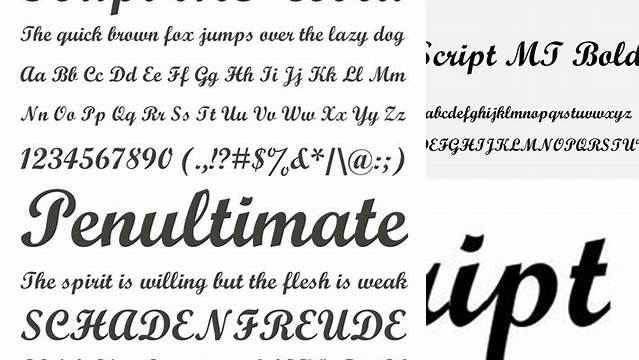
Hey guys! Looking to add a touch of elegance and sophistication to your designs? Script MT Bold is a classic font that can do just that. It's perfect for everything from invitations to branding materials, and the best part? You can often find it for free download! But before you rush off to download it, let's dive deep into the world of Script MT Bold and explore everything you need to know. This comprehensive guide will cover where to find it, how to use it, and even some awesome alternatives. Let's get started!
What is Script MT Bold?
Script MT Bold is a widely recognized and used typeface, known for its elegant and flowing script style. It's a popular choice for projects that require a touch of class and sophistication. You know, the kind of font that makes everything look just a little bit more fancy. It’s a classic for a reason, often used in formal invitations, logos, and branding materials. The bold variant adds extra emphasis, making the text stand out even more. This font's readability is also pretty good, even though it has a handwritten feel. It’s a great option if you want something that looks personal but is still easy to read. So, if you're looking to add a dash of elegance and a bold statement to your project, Script MT Bold might just be the perfect font for you. Now, let's explore where you can get your hands on this versatile typeface for free and how to make the most of it in your designs.
Script MT Bold Font History
Understanding the history of a font like Script MT Bold gives you a deeper appreciation for its design and usage. Fonts aren’t just letters; they’re little pieces of history themselves! The Script MT family has been around for quite a while, initially designed to mimic the look of handwritten script. This makes it a timeless choice, bridging the gap between traditional calligraphy and modern digital typography. The exact origins are a bit murky, but it's widely believed to have roots in earlier script typefaces that were popular in the pre-digital era. Think of it as a digital evolution of classic penmanship! Over the years, Script MT Bold has found its way into countless designs, from wedding invitations to prestigious branding projects. Its enduring popularity speaks to its versatility and aesthetic appeal. By knowing its background, you can use this font more effectively, leveraging its historical charm to enhance your own projects. It's not just about choosing a font; it's about choosing a legacy. Knowing the history behind Script MT Bold helps you use it in a way that respects its origins while still making it fresh and relevant for today’s designs. Let's move on and discuss the key characteristics that make this font so special.
Key Characteristics of Script MT Bold
So, what exactly makes Script MT Bold stand out from the crowd? Well, it's a combination of several key characteristics that contribute to its distinctive look and feel. First off, its flowing, cursive lines give it an immediate sense of elegance and sophistication. It's designed to mimic the natural strokes of handwriting, which makes it feel personal and refined. The bold weight adds a strong presence, ensuring that the text commands attention without being overly aggressive. The letterforms are generally quite legible, even with the script style, which is a crucial factor for readability. You want people to be able to read what you’ve written, right? Another notable feature is the consistent slant and rhythm of the letters, creating a harmonious and visually appealing texture on the page. This consistency makes it a reliable choice for various design applications. Whether you’re crafting a logo, designing an invitation, or adding a touch of class to your website, Script MT Bold’s characteristics make it a versatile and impactful option. Understanding these features helps you utilize the font to its full potential, ensuring your message is conveyed with both style and clarity. Now, let's explore some of the best ways to use this fantastic font in your projects.
Best Uses for Script MT Bold
Okay, now that we know what Script MT Bold is and its key characteristics, let's talk about where it really shines. This font isn't just a pretty face; it's a workhorse when used correctly. One of the most popular applications is in formal invitations. Think wedding invites, gala announcements, or any event where you want to convey a sense of elegance and tradition. The flowing script adds a touch of romance and sophistication that’s hard to beat. It's also a fantastic choice for branding, especially for businesses that want to project a classic or high-end image. Imagine a luxury brand using Script MT Bold in their logo – instantly, it communicates quality and refinement. Another great use case is in headings and titles, where the bold weight can make a strong statement. However, it’s best to use it sparingly in body text, as large blocks of script can become difficult to read. Think of it as the perfect accent, not the entire melody. Additionally, Script MT Bold works well in signage and displays where you want to catch the eye with a touch of class. So, whether it's for a special event, a brand identity, or a striking headline, Script MT Bold can bring a touch of elegance and impact to your design. Next up, let's tackle the big question: where can you actually download this font for free?
Alternatives to Script MT Bold
Okay, so maybe Script MT Bold isn't quite the right fit for your project, or perhaps you're just looking to expand your font library. No worries! There are tons of awesome alternatives out there that can give you a similar elegant script vibe. One popular choice is Brush Script MT, which shares a similar handwritten feel but with a slightly more casual and playful look. It’s great if you want something that’s elegant but not too formal. Another fantastic option is Edwardian Script ITC. This font is super classy and ornate, perfect for projects that need a touch of old-world charm. It's often used in wedding invitations and other high-end designs. If you're looking for something a bit more modern, consider using Great Vibes. This font has a beautiful flowing script that feels contemporary and stylish. For a bolder and more impactful look, try BlackJack. It's a strong, confident script that works well for headlines and logos. Another great alternative is Allura, which offers a clean and readable script with a touch of elegance. And let's not forget about Pacifico, a fun and friendly script that’s perfect for a more relaxed feel. Exploring these alternatives can help you find the perfect font for your project, ensuring you get the exact look and feel you’re after. Remember, the right font can make all the difference in your design. Next, we’ll delve into how to install Script MT Bold (or any font, really) on your computer.
Common Design Mistakes to Avoid When Using Script Fonts
Okay, Script MT Bold is a beautiful font, but like any design element, it can be misused. Let's talk about some common pitfalls to avoid so you can make the most of this elegant typeface. One of the biggest mistakes is overusing it. Script fonts are best used sparingly, as too much can make your design look cluttered and hard to read. Think of it as a spice – a little goes a long way! Using Script MT Bold for large blocks of body text is a definite no-no. The flowing, cursive nature of script fonts makes them challenging to read in long paragraphs. Stick to using it for headings, titles, or short phrases where it can make an impact without sacrificing readability. Another mistake is pairing it with the wrong fonts. You want to choose a complementary typeface that doesn’t clash with the elegance of Script MT Bold. Simple, clean sans-serif fonts often work well, providing a nice contrast. Also, be mindful of the size and spacing. Script fonts can sometimes appear smaller than other fonts, so you might need to increase the size slightly. Proper letter spacing (kerning) and line height (leading) are crucial for readability. Finally, avoid using too many different fonts in one design. Stick to a maximum of two or three fonts to keep your design cohesive and professional. By steering clear of these common mistakes, you can ensure that Script MT Bold enhances your design rather than detracting from it. Now, let's explore how Script MT Bold performs across different operating systems.
Final Thoughts and Resources for Using Script MT Bold
Alright guys, we've covered a lot about Script MT Bold in this guide, from its history and characteristics to its best uses and licensing considerations. Hopefully, you now have a solid understanding of how to use this elegant font effectively in your designs. Remember, Script MT Bold is a versatile typeface that can add a touch of sophistication to a wide range of projects, from invitations and logos to social media graphics and video editing. However, it's important to use it strategically and sparingly to avoid overwhelming your designs. Pair Script MT Bold with clean, legible fonts for body text, and always ensure that your text is readable across different devices and platforms. Pay attention to licensing terms and use the font legally. If you're looking for additional resources, there are many websites and online communities where you can find inspiration, tips, and tutorials on typography and font pairing. Websites like FontPair, Typewolf, and Canva's Font Combinations are great starting points. You can also explore online design communities like Dribbble and Behance to see how other designers are using Script MT Bold and other fonts in their work. Experiment with different font combinations and design techniques to find what works best for your projects. Typography is a skill that improves with practice, so don't be afraid to try new things and push your creative boundaries. By following the tips and guidelines in this guide and continuing to explore and learn, you can master the art of typography and create stunning designs with Script MT Bold and other fonts. Happy designing!